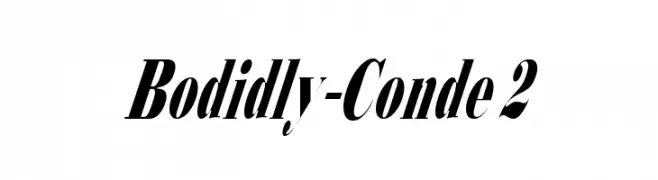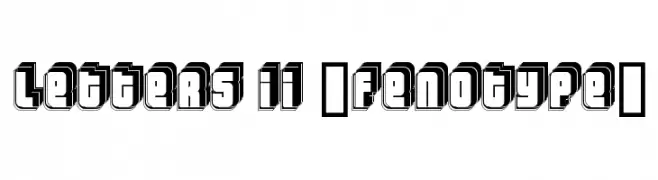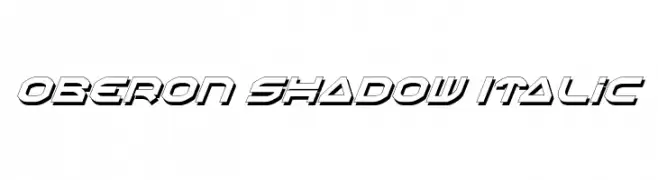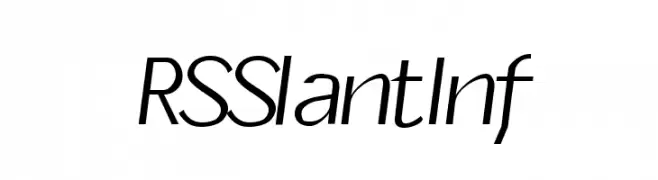
( Fonts by Nick Curtis - www.nicksfonts.com )
A bold, high-contrast font with elongated, geometric characters.
A modern, sleek font with tall, narrow characters and a clean, minimalistic style.
( Fonts by Emil Bertell - www.fenotype.com )
A bold, 3D geometric font with strong outlines and a modern, industrial feel.
A bold, italicized font with a futuristic shadow effect.
( Fonts by Levi Halmos )
A sleek, modern font with elongated, narrow characters and a minimalist style.